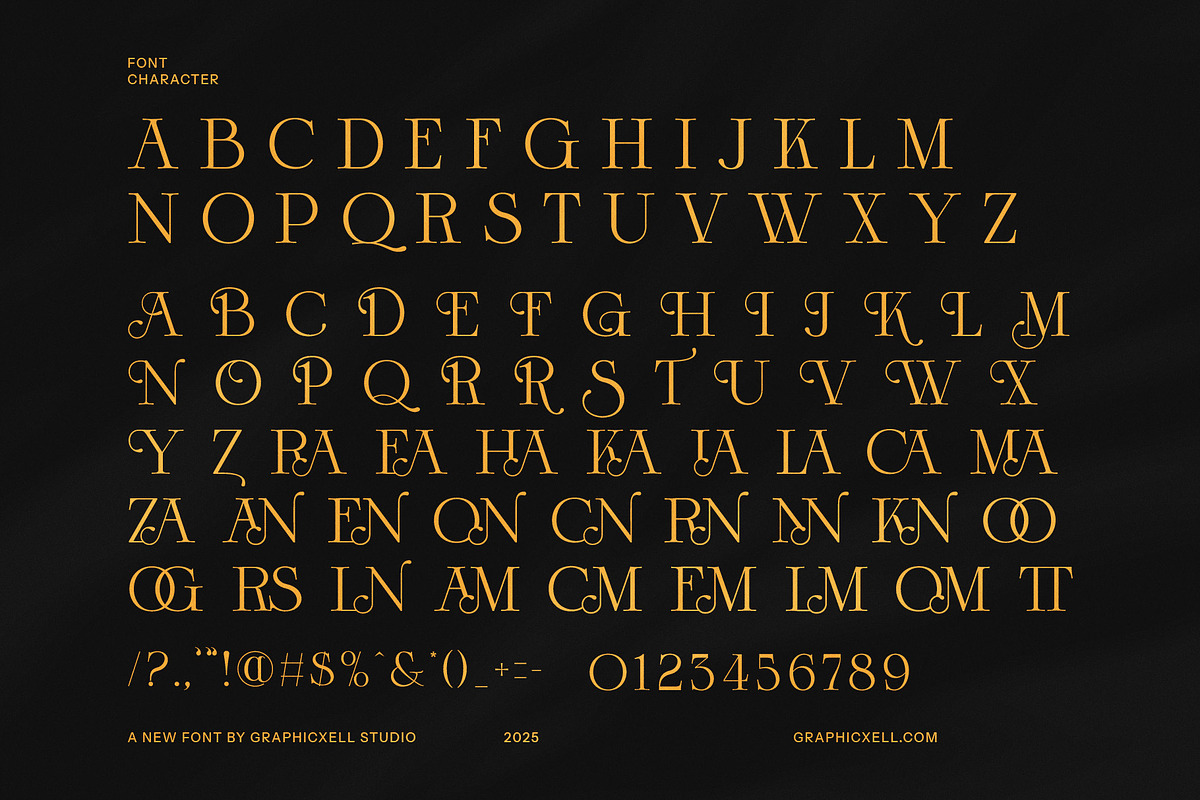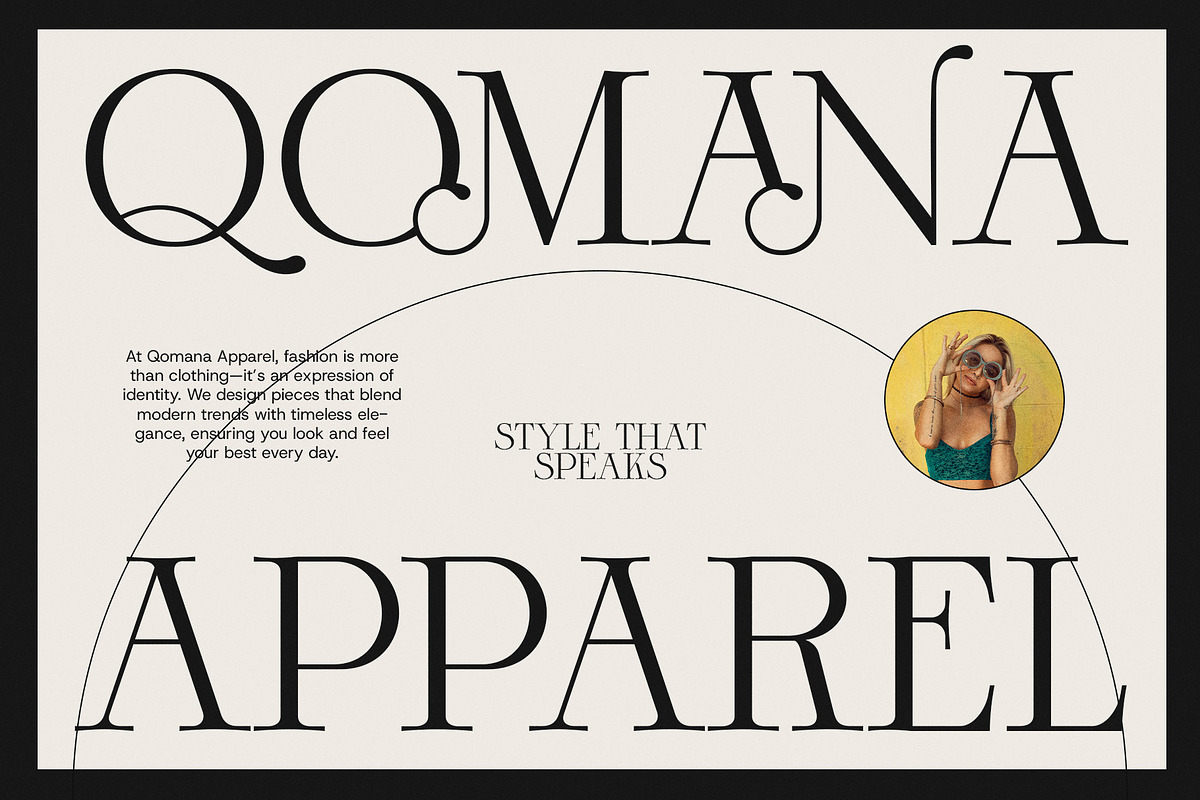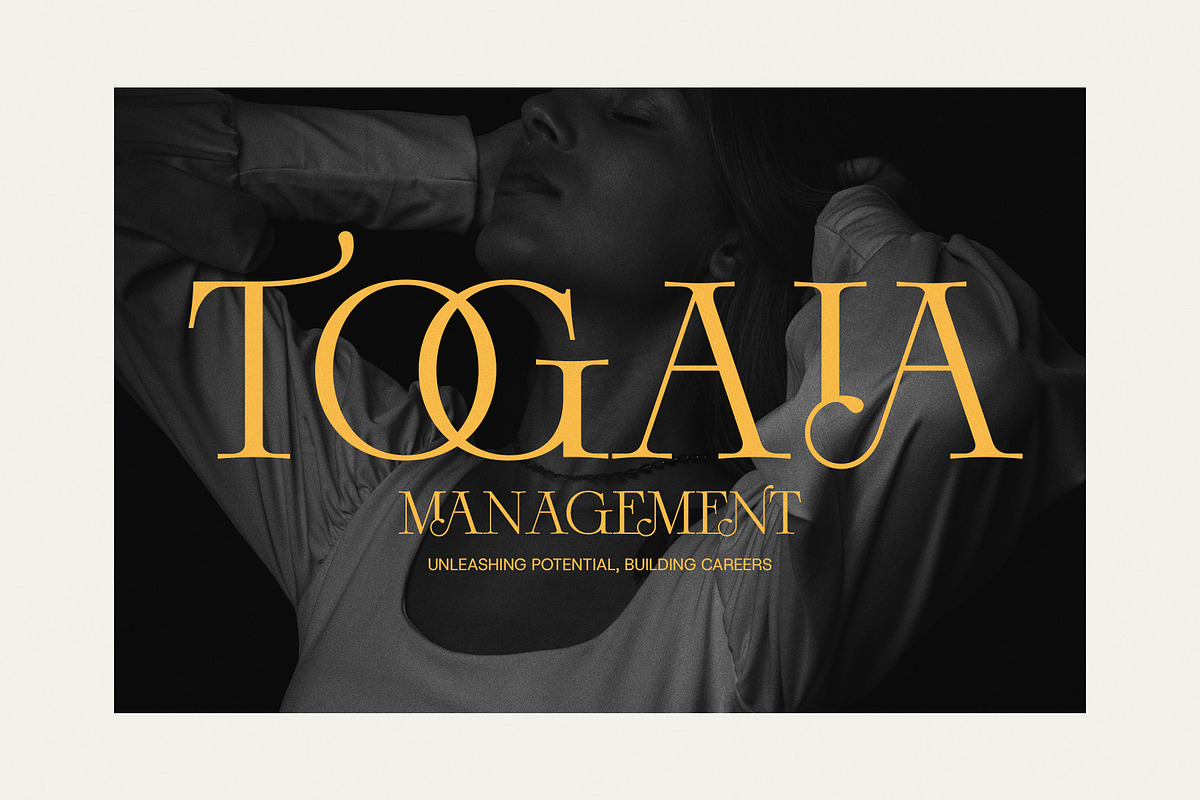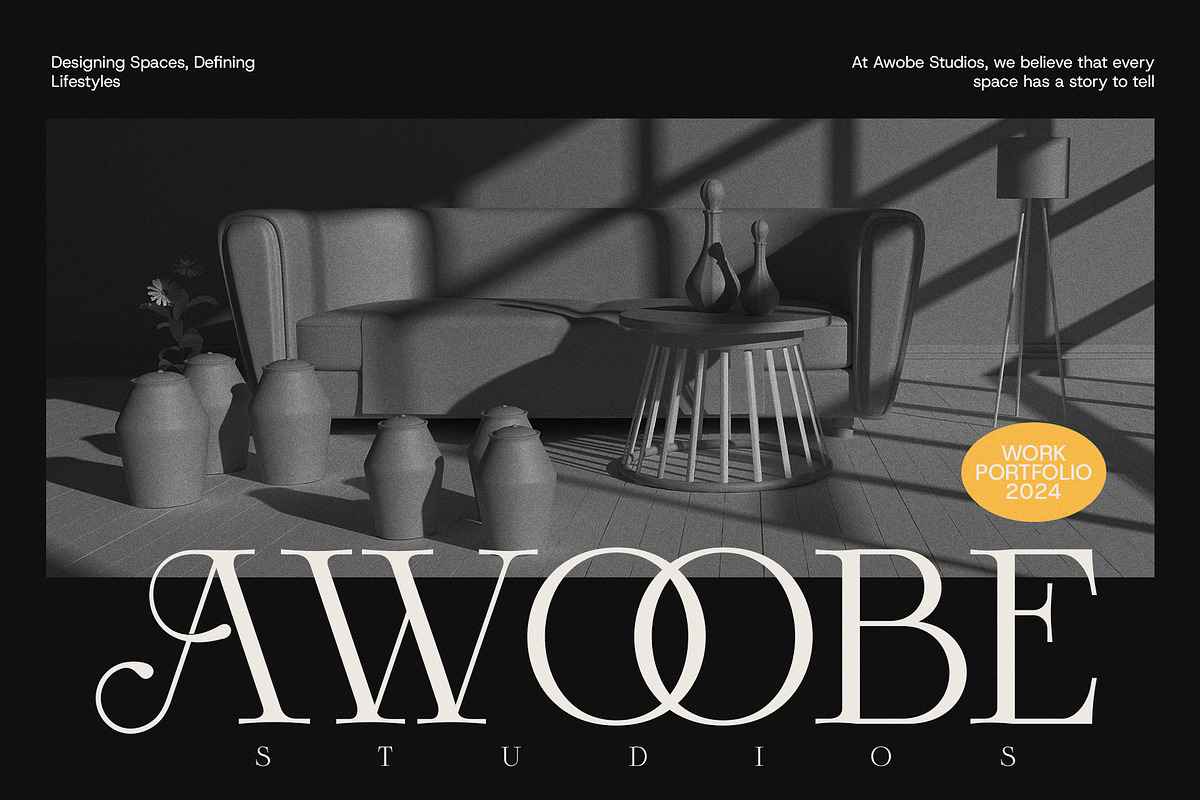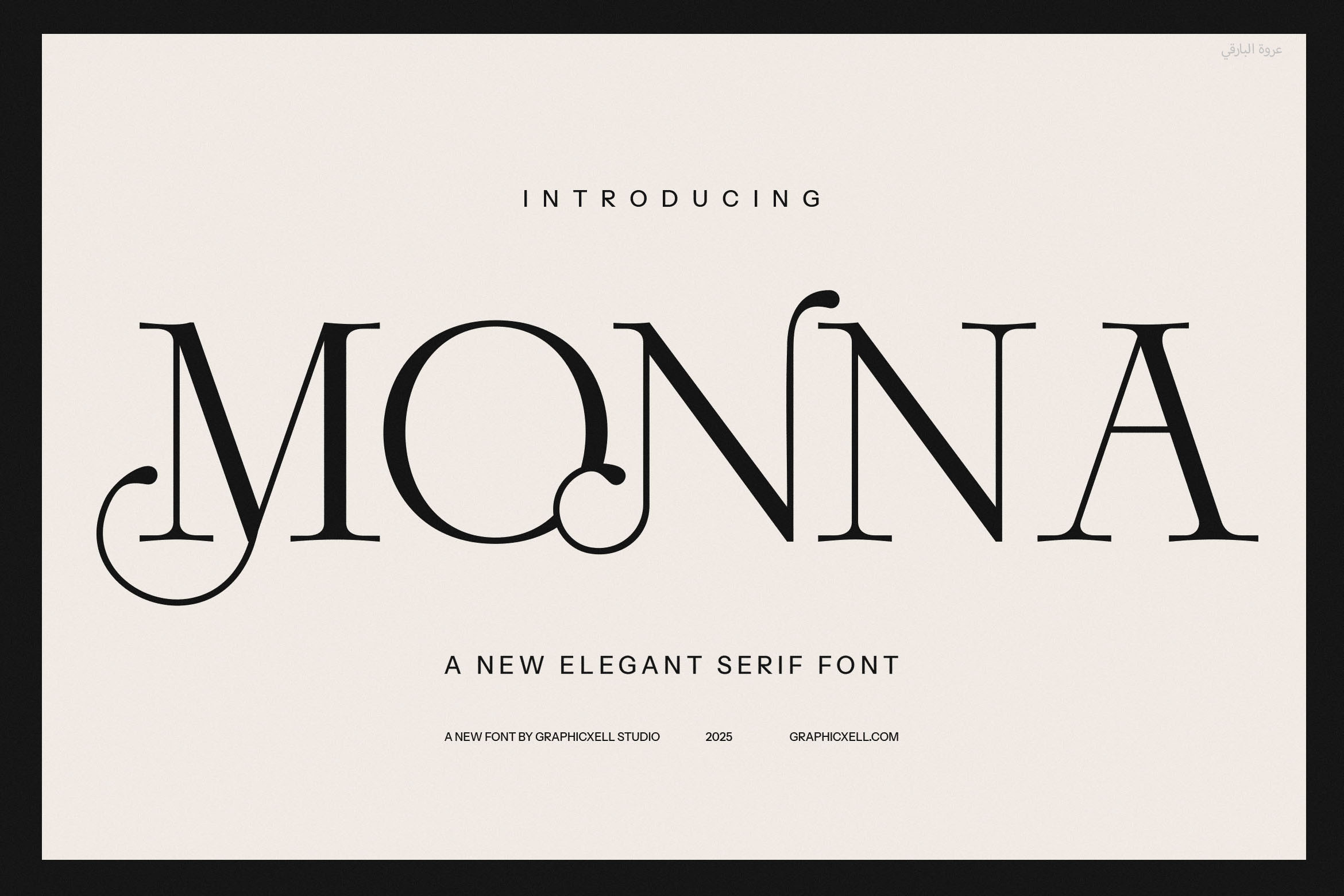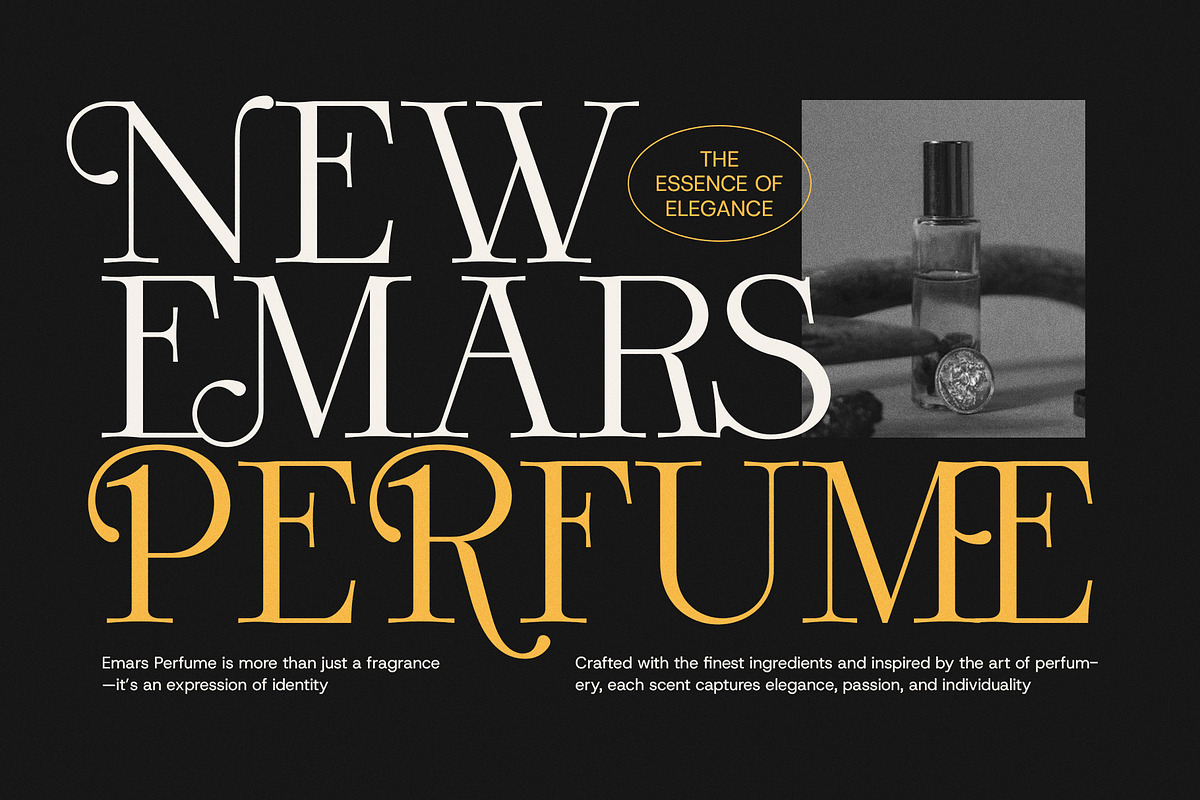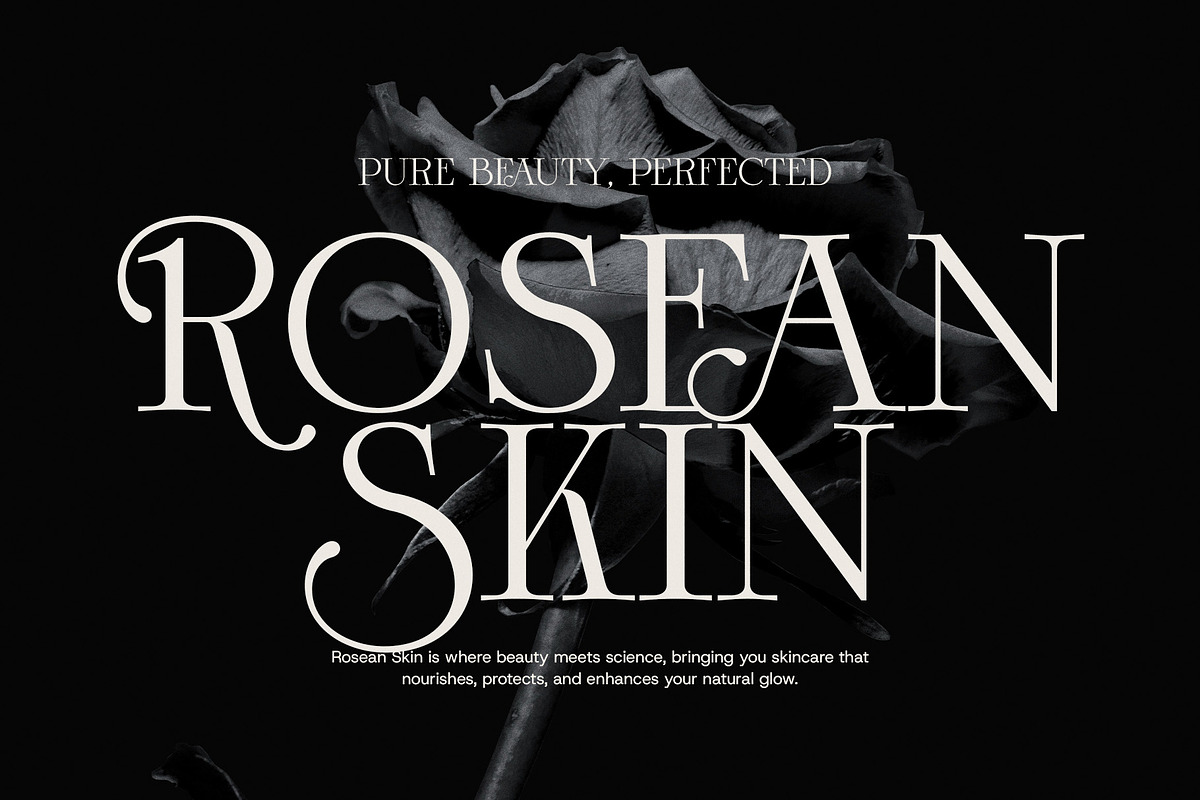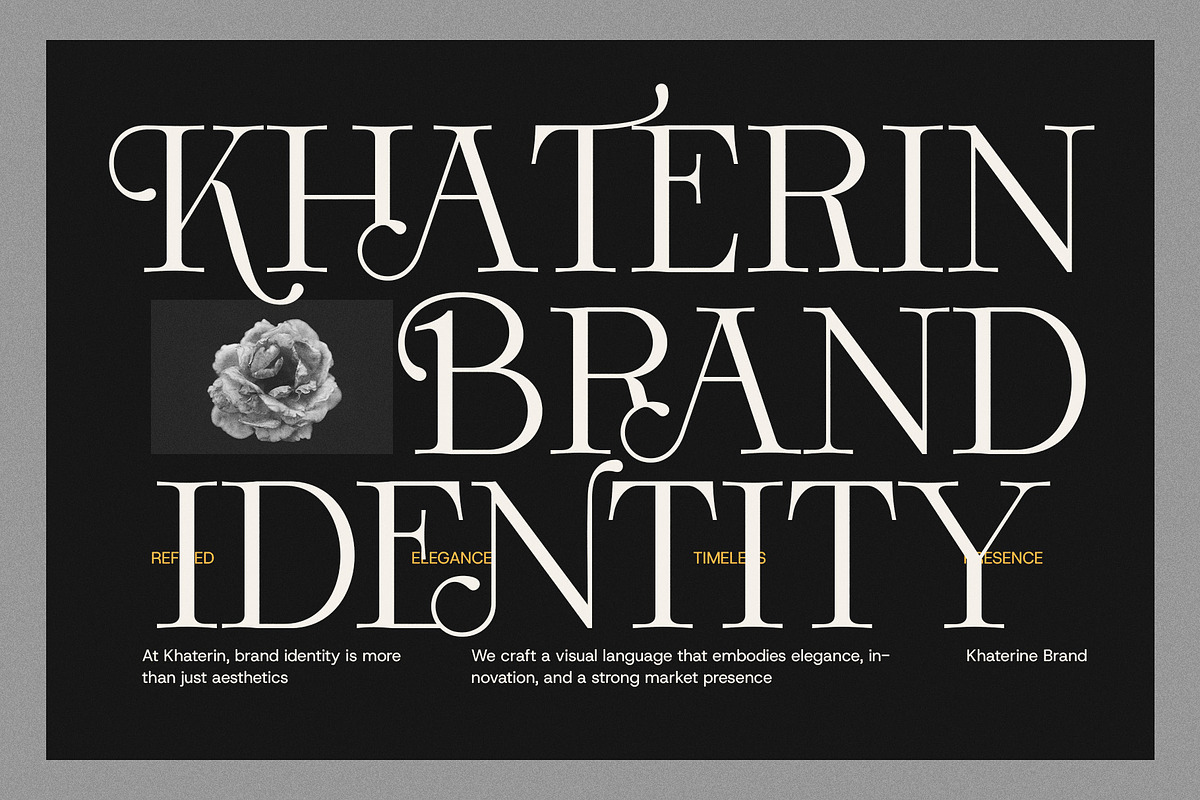
Monna Minimalist Serif Font
Monna Minimalist Serif Font is a refined and stylish typeface that effortlessly blends modern sophistication with minimalist design. With its clean lines, subtle curves, and elegant serifs, Monna brings a fresh, contemporary twist to classic typography. Perfect for a wide range of creative projects, this font is a must-have for anyone looking to elevate their design with a minimalist yet impactful style.
Monna features unique ligatures and alternate characters, giving you endless possibilities for customization and creative expression. These carefully crafted details add an extra layer of personality, making the font ideal for branding, logos, websites, product packaging, magazines, and advertising materials. Whether you're designing for a high-end boutique, a trendy restaurant, or a cutting-edge tech company, Monna Minimalist Serif ensures your typography will capture attention and exude sophistication.
Designed with versatility in mind, Monna shines in both print and digital formats. Its sleek, modern appearance ensures it stands out without overwhelming the design, making it suitable for everything from elegant magazine layouts to professional corporate identities. Whether used for headers, body text, or promotional materials, Monna offers a perfect balance of readability and elegance.
Elevate your design projects with Monna Minimalist Serif Font, a typeface that combines modern aesthetics with timeless appeal. Ideal for logos, websites, branding, and more, this font is a go-to choice for those seeking elegance, simplicity, and style in their designs.